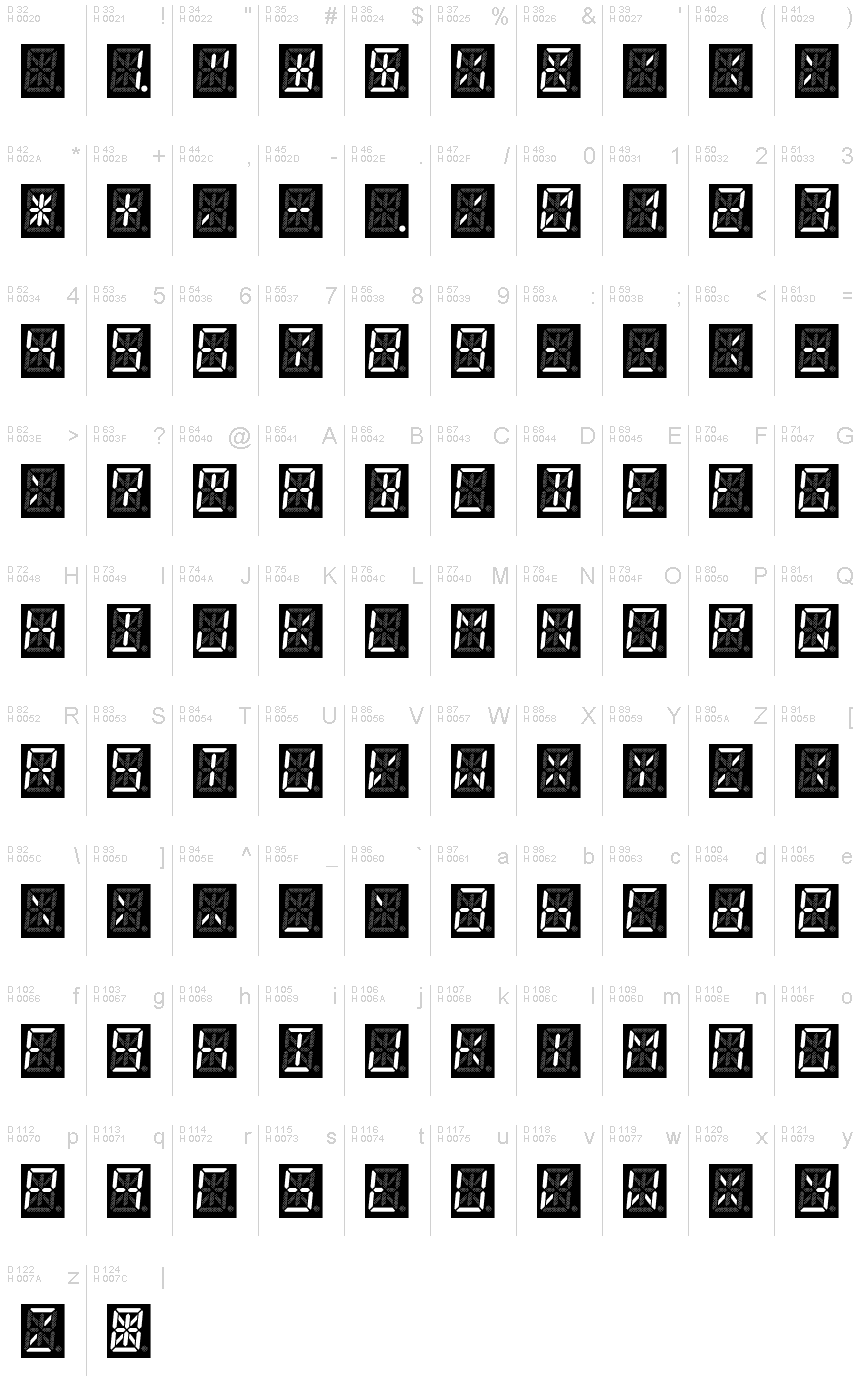
14 SegmentLED
14 SegmentLED, designed by Anthony Robinson, is a light negative digital display font perfect for creating impactful designs with an edge. It's ideal for projects requiring a futuristic, minimalistic feel such as logos, posters and motion graphics.